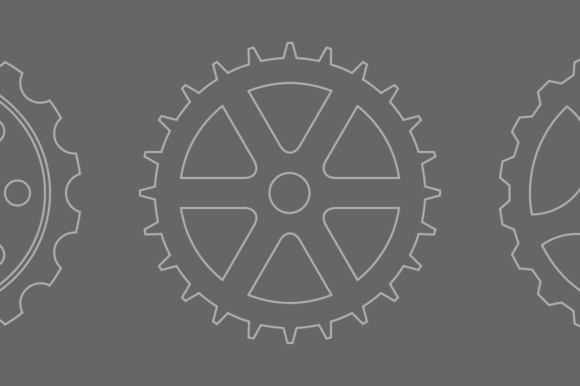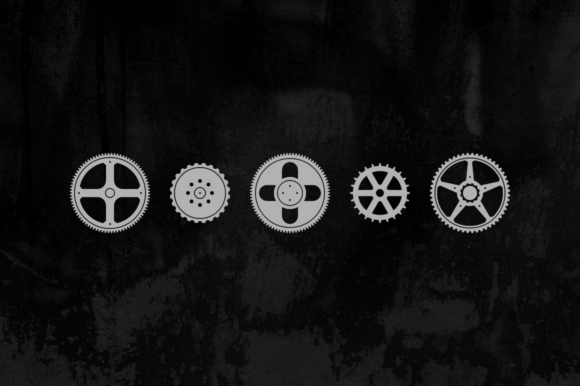
Introducing Engranajes Family Font: A Comprehensive Guide
Are you a designer or crafter looking for a unique and versatile font to elevate your creative projects? Look no further than Engranajes Family Font, a dingbats/symbol typeface created by Graviton. In this article, we’ll dive into the world of Engranajes, exploring its features, benefits, and uses.
What is Engranajes Family Font?
Engranajes is a carefully crafted dingbats/symbol typeface designed by Graviton. The name “Engranajes” is Spanish for “gears,” which reflects the font’s mechanical and industrial aesthetic. This font family is perfect for designers and crafters seeking a distinctive and functional symbol set to enhance their work.
Key Features of Engranajes Family Font
- Unique Symbol Set: Engranajes offers a wide range of symbols, including gears, cogs, mechanical components, and other industrial-themed icons.
- Versatile: This font family can be used for various design projects, such as logos, icons, infographics, and more.
- High-Quality Design: Engranajes boasts a clean, crisp design, ensuring that your projects look professional and polished.
- Easily Customizable: With Engranajes, you can adjust the font size, color, and style to fit your design needs.
Benefits of Using Engranajes Family Font
So, why choose Engranajes Family Font for your design projects? Here are some benefits:
- Adds Industrial Touch: Engranajes’ mechanical and industrial symbols can add a unique, edgy feel to your designs.
- Enhances Visual Storytelling: The font’s symbol set can help convey complex ideas and concepts in a visually engaging way.
- Saves Time: With Engranajes, you can quickly and easily add professional-looking symbols to your designs, saving you time and effort.
- Cross-Platform Compatibility: Engranajes Family Font is compatible with various design software and platforms, ensuring seamless integration into your workflow.
Who Can Benefit from Engranajes Family Font?
Engranajes Family Font is an excellent choice for:
- Graphic Designers: Looking for a distinctive font to add to their design arsenal.
- Crafters: Seeking unique symbols and icons for their DIY projects.
- Industrial Designers: Needing a font that reflects their industrial and mechanical design aesthetic.
- Marketing and Advertising Professionals: Aiming to create eye-catching campaigns with a bold, industrial look.
Engranajes Family Font is a versatile and unique dingbats/symbol typeface that can elevate your design projects. With its industrial aesthetic, high-quality design, and ease of use, Engranajes is an excellent choice for designers and crafters alike. Whether you’re looking to add an industrial touch, enhance visual storytelling, or simply save time, Engranajes Family Font is a valuable addition to your design arsenal.